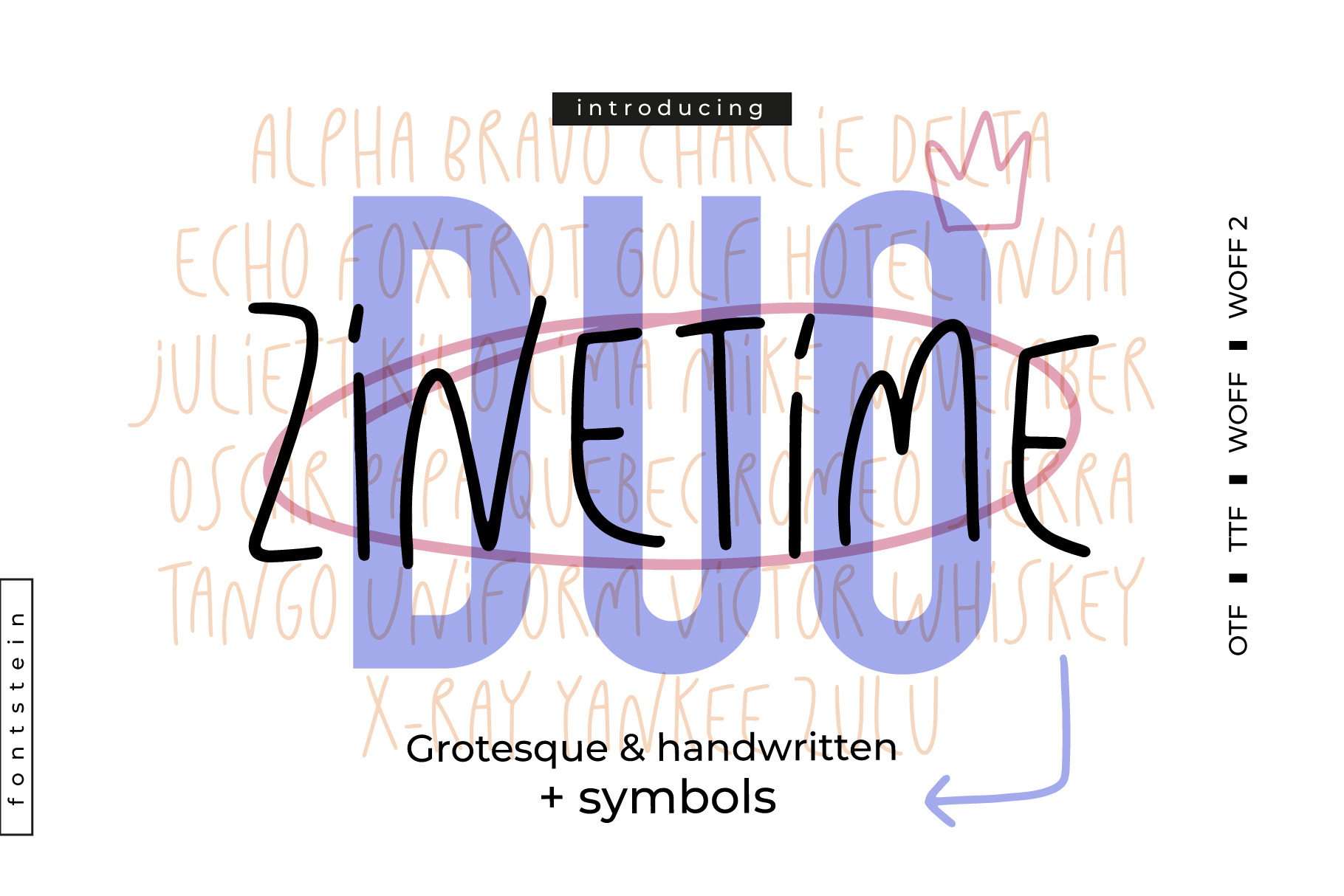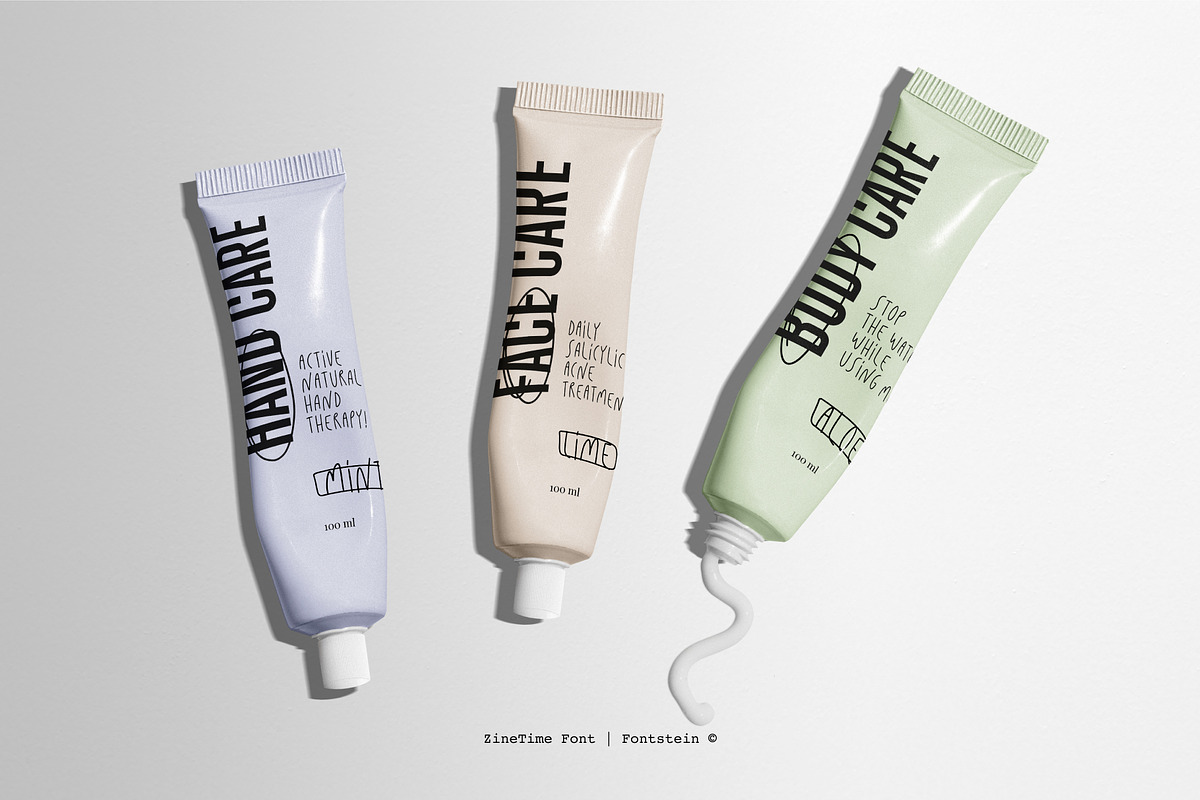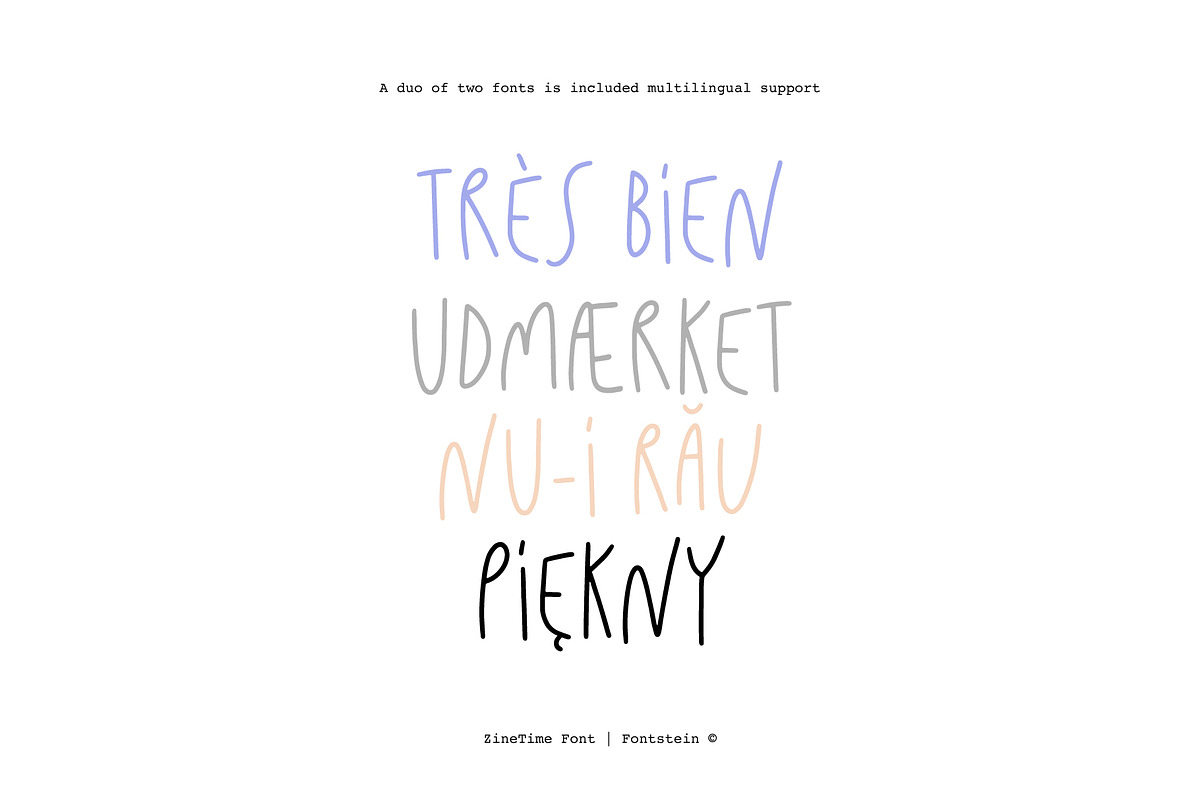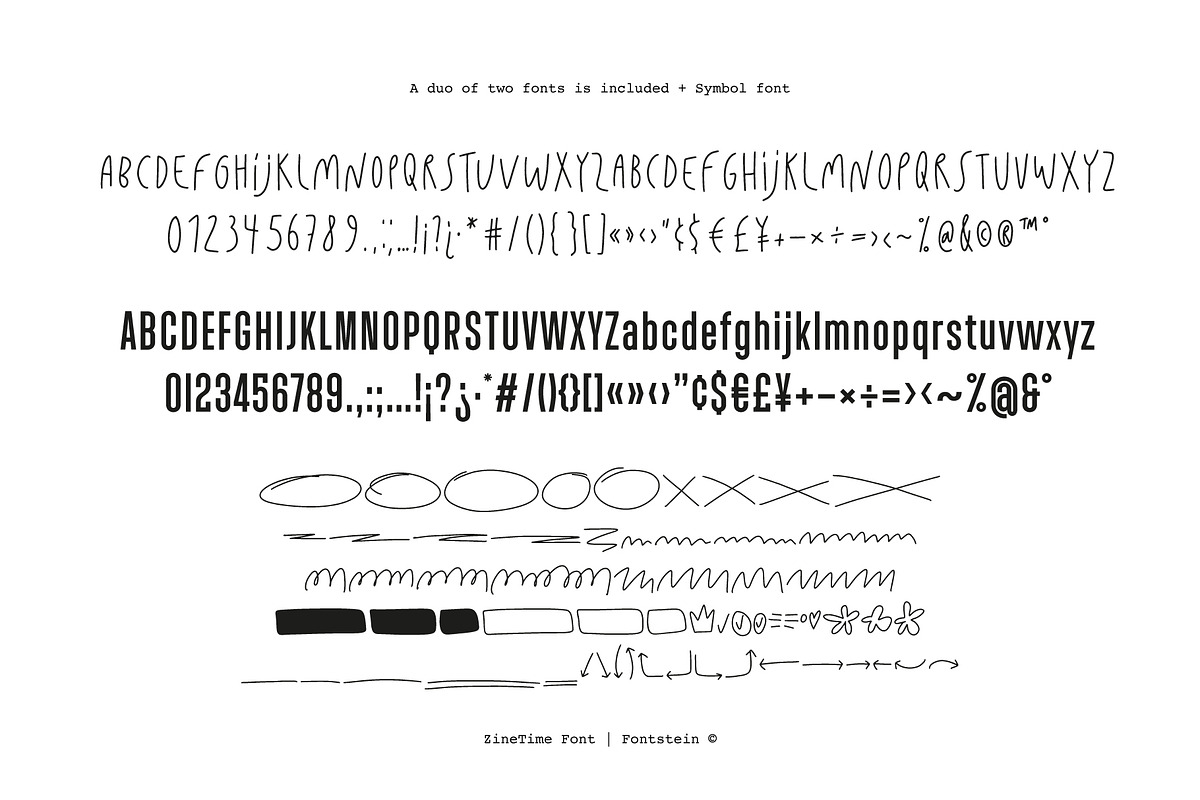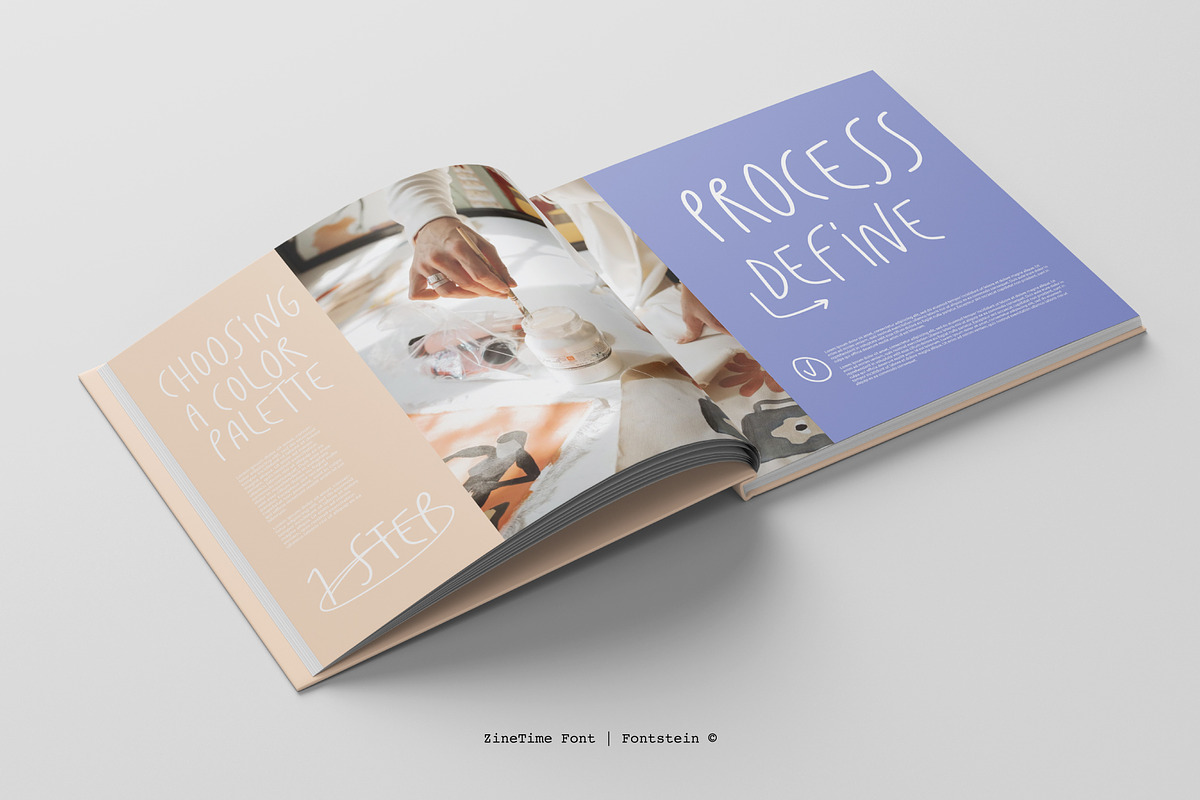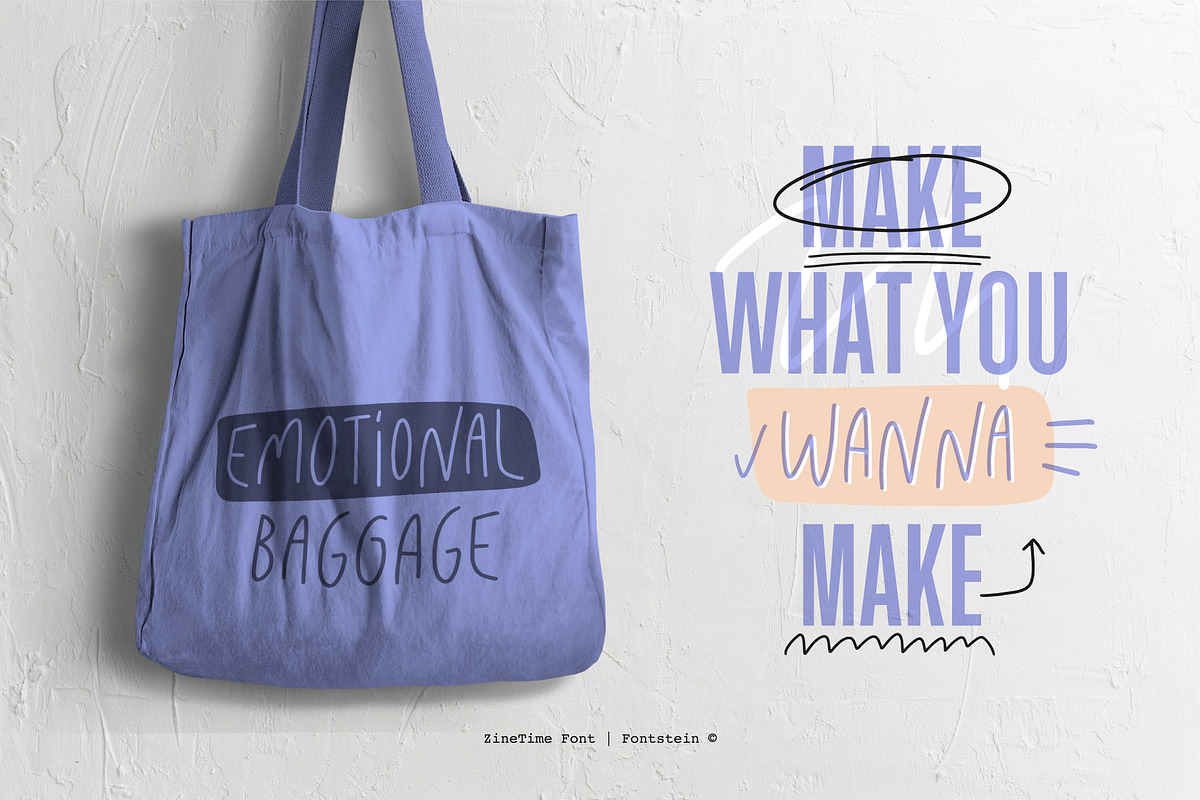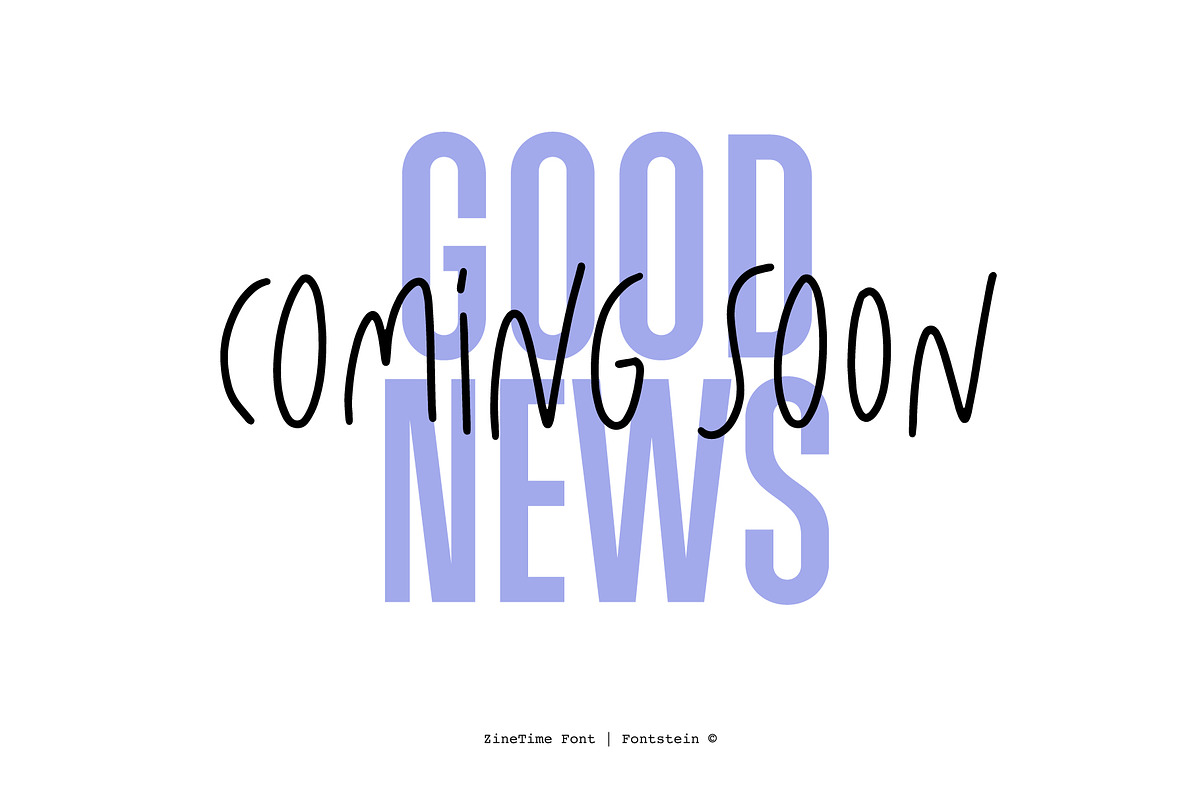
ZineTime Font Set | DUO + Symbols
Say hello to ZineTime - a playful handwritten font with capital letters. Lowercase letters are an alternative to uppercase. Just switch between uppercase and lowercase letters to make your quote look even more handwritten.
ZineTime is a set of fonts that perfectly match each other. The set is supplemented with a font of symbols to make your design even more expressive.
It's the best solution for modern branding, quotes, social media, invitations, greeting cards, headlines and all kinds of fun designs.
The kit has extensive language support - it includes the main Latin characters, Western European, Central European, South-Eastern European. If you want to test your language, please enter something in the test box below the preview :)